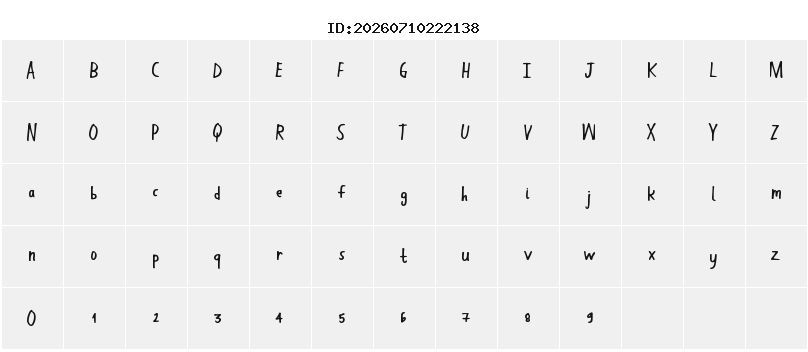
HandWork Preview
• Font Name: HandWork
• Font ID: HandWork:Version 1.00
• Full Font Name: HandWork
• Version: Version 1.00 October 10, 2012, initial release
• PostScript Name: HandWork
• Character Count: 66
• Designer: Max Infeld
• Manufacturer: Xerographer Fonts
• Description: made in chico,ca at Twin Palms
About HandWork.ttf
HandWork.ttf is a modern, elegant sans-serif font designed for ultimate readability and visual harmony. Perfect for branding, headlines, web design, and print materials.